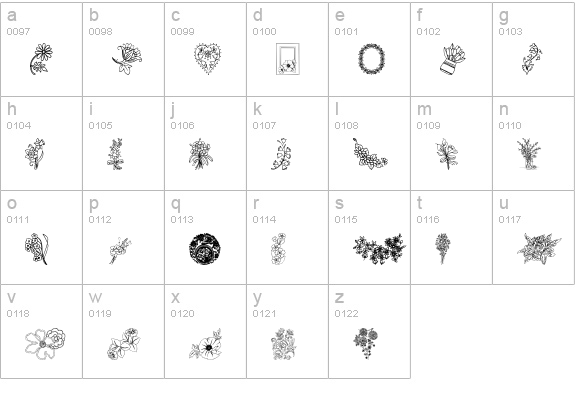
From the garden Font Details
From the garden font is a whimsical and charming typeface inspired by the beauty of nature. Its elegant curves and playful design evoke a sense of tranquility and creativity, making it perfect for a wide range of projects. Whether you're working on a wedding invitation, branding materials, or simply adding a touch of whimsy to your designs, From the garden font is sure to captivate your audience. This delightful font is freely available to download at FontsMarket.com, allowing you to bring a touch of nature into your projects without any cost. Don't miss the opportunity to add a unique and enchanting element to your designs with From the garden font. Download it today and let your creativity blossom!